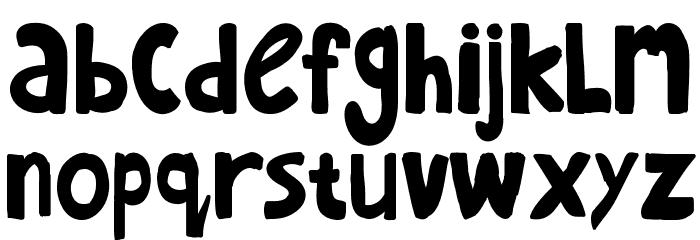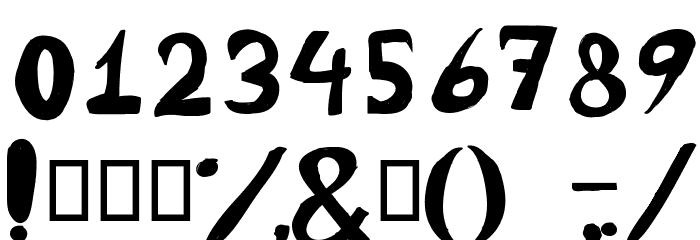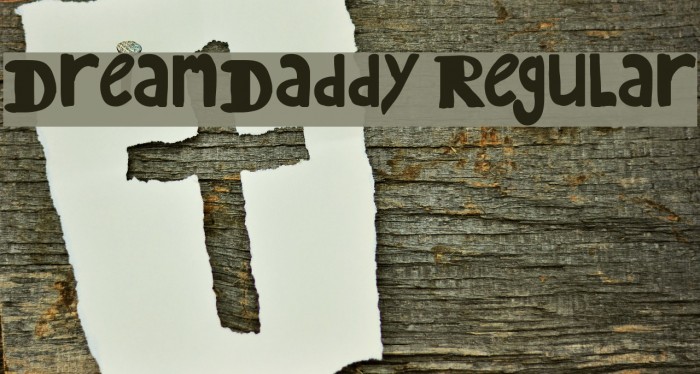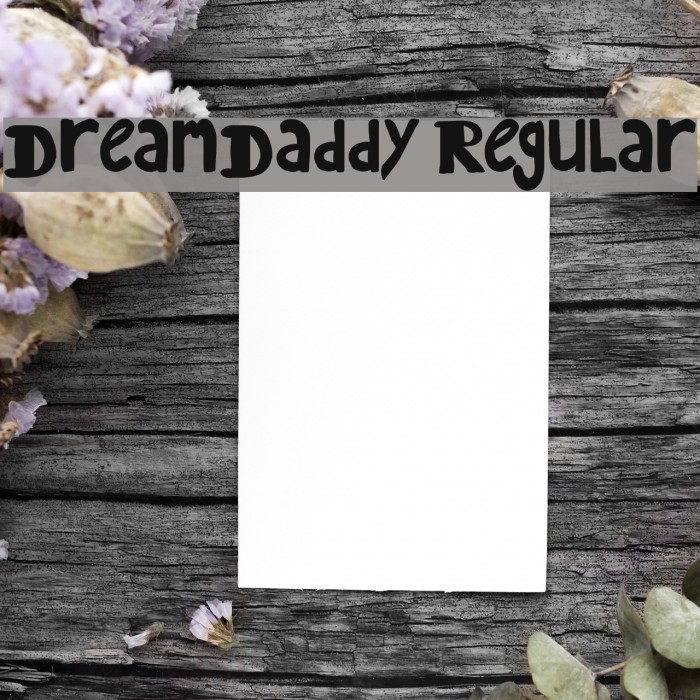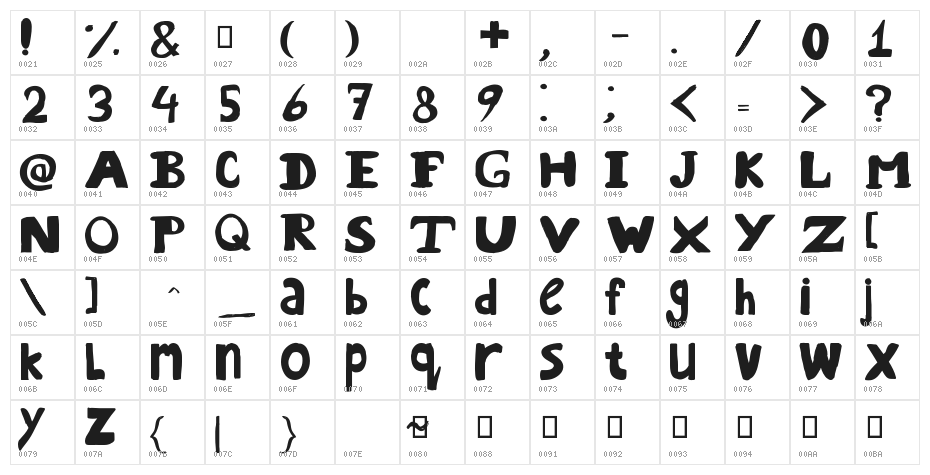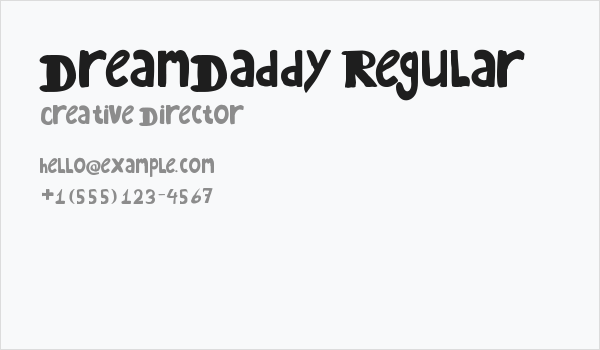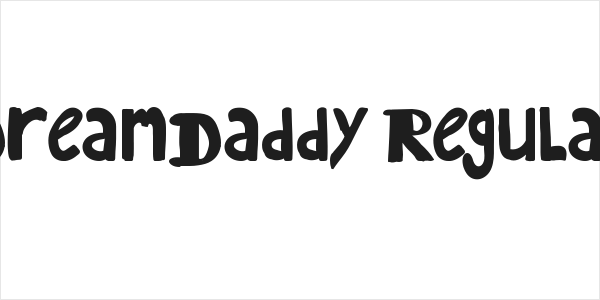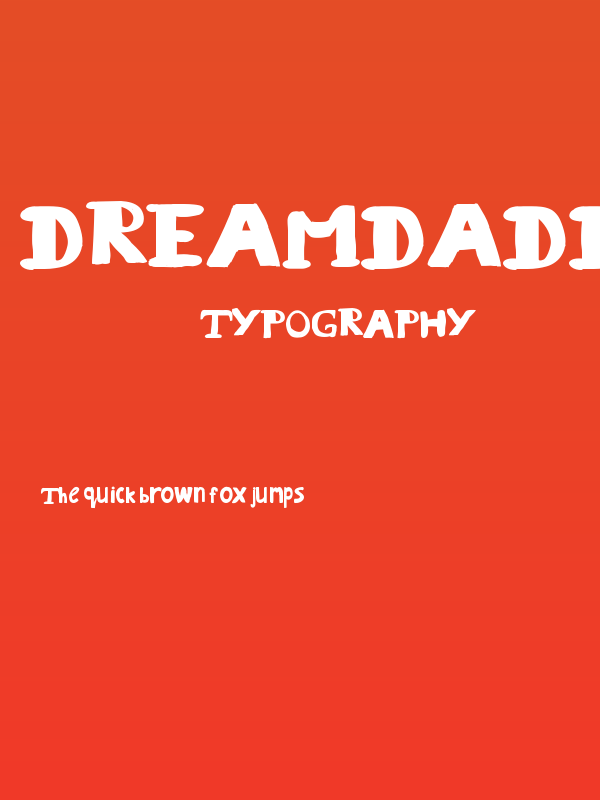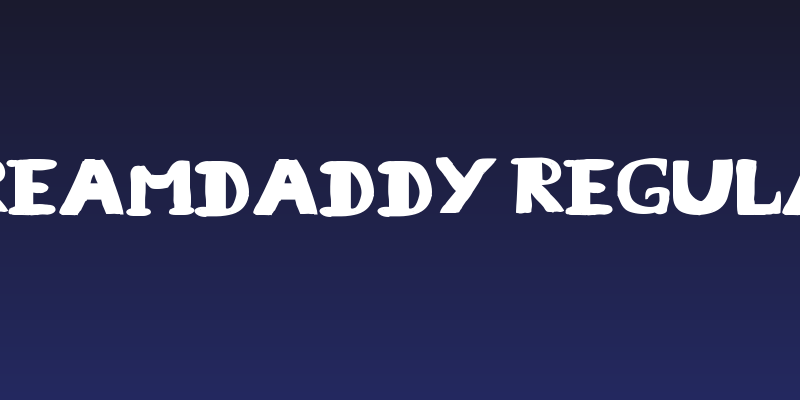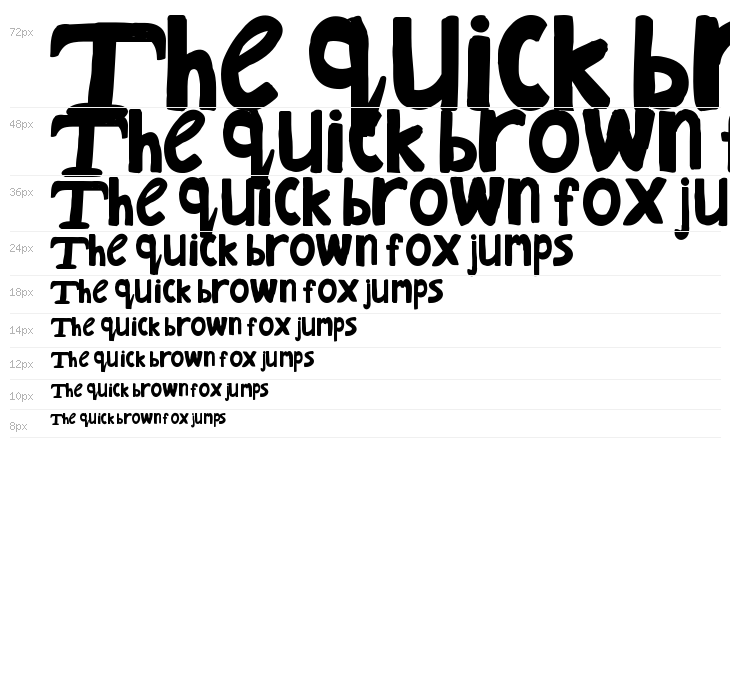
DreamDaddy Regular Font
This font features a playful and bold style with a hand-drawn appearance. The characters have a whimsical and slightly irregular form, giving them a unique and artistic flair. The uppercase and lowercase letters maintain a consistent thickness, while the numbers and special characters follow the same playful design. The strokes are rounded and smooth, contributing to a friendly and approachable look. This font is ideal for projects that require a fun and informal touch, such as children's books, creative posters, or playful branding.
A playful, hand-drawn font with bold, rounded characters.
- Proposed Projects: Ideal for children's books, creative posters, playful branding, and informal designs.
- Overall Style: Playful